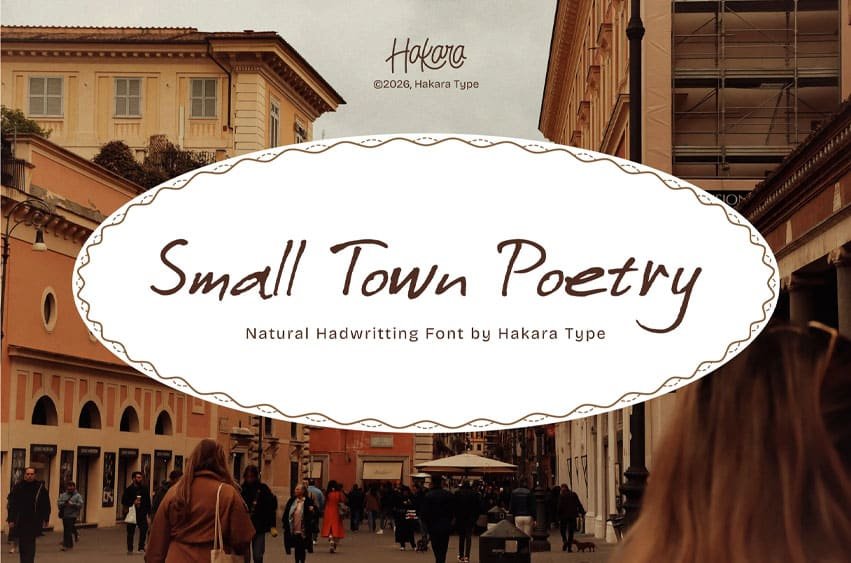
Small Town Poetry Font is an expressive handwritten display font inspired by raw lettering, quiet streets, handwritten notes, and the poetic charm of everyday life.
With its loose brush strokes, imperfect shapes, playful rhythm, and distinctive uppercase and lowercase characters, Small Town Poetry brings an authentic handmade personality to your designs.
Perfect for branding, logos, posters, album artwork, social media graphics, quotes, invitations, editorial designs, and other creative projects that need a personal and artistic touch.
- Expressive and organic letterforms